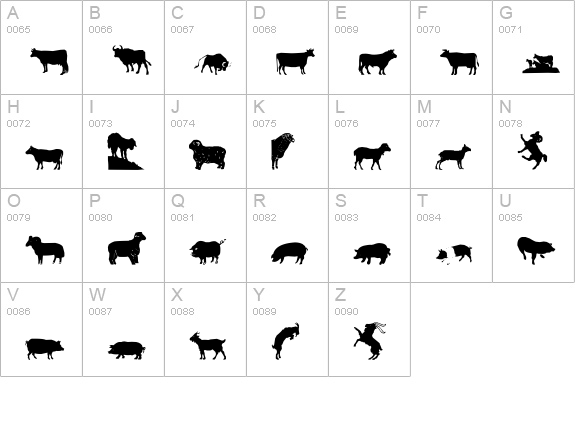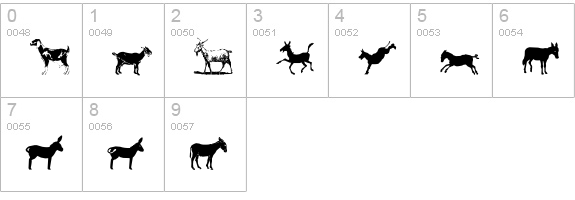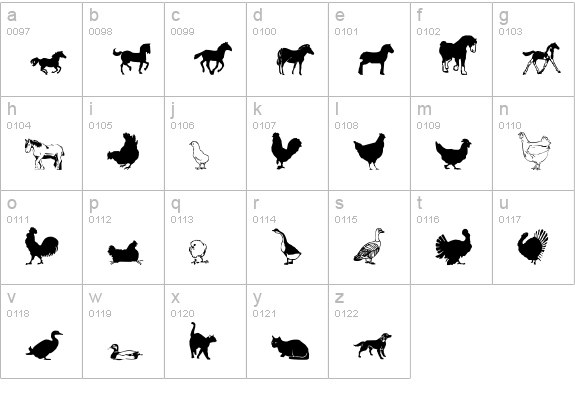
Barnyard Font Details
Barnyard font is a whimsical and playful typeface that will bring a touch of rustic charm to your designs. With its hand-drawn look and quirky style, Barnyard font is perfect for adding a fun and friendly vibe to your projects. The uneven lines and imperfect shapes give this font a unique and organic feel, making it stand out from the crowd. Whether you're designing posters, greeting cards, or social media graphics, Barnyard font will add a touch of personality and warmth to your creations. Best of all, Barnyard font is available for free download at FontsMarket.com, so you can start using this delightful typeface in your projects right away. Embrace the charm of the countryside with Barnyard font and let your creativity run wild!